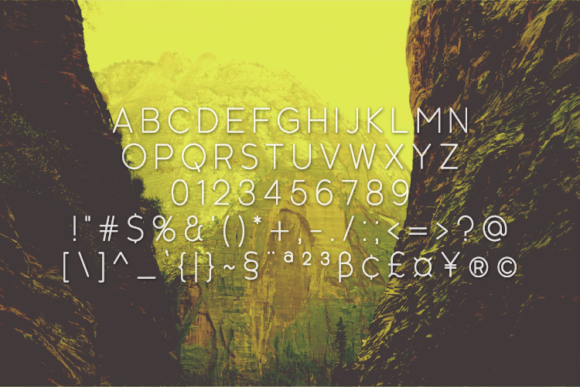
Introduction to Creatstone Font
Creatstone is a modern and clean sans serif font that is versatile and looks great in just about any context.
With smooth and clean lines, and just a touch of contrast, Creatstone works beautifully for logos, branding, web headings and much more .